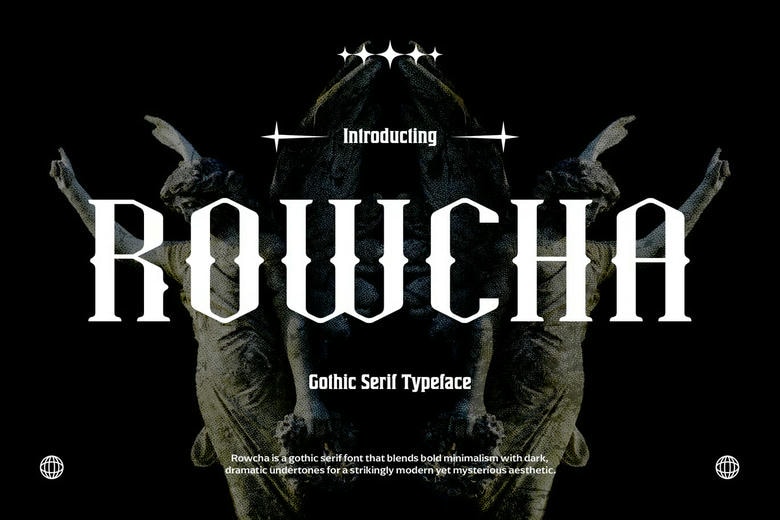
Rowcha Font
Rowcha- Rock Gothic Serif is a premium font meant to cause dark glamour and strong vintage vibe to your branding and design projects. Made of bold gothic-inspired serifs and medieval letterforms, this font provides a dramatic, mysterious, and bold appearance to a logo, poster, music cover or editorial use.
Working on a rock band logo, a gothic branding, a horror poster, a fantasy novel cover Rowcha will add a bold, timeless touch to your design. It is best applied in album covers, magazine titles, tattoo-based designs, Halloween and gothic branding.
Sharp gothic serifs, powerful rock-inspired shapes, and vintage blackletter detail combines to make a strong visual impression and remain readable in Rowcha. It does not matter whether you need to design a rock music branding, gothic poster, editorial layout, or a fantasy-inspired project, this font will fit perfectly and add more drama to your work.
Rowcha Rock Gothic Serif Font